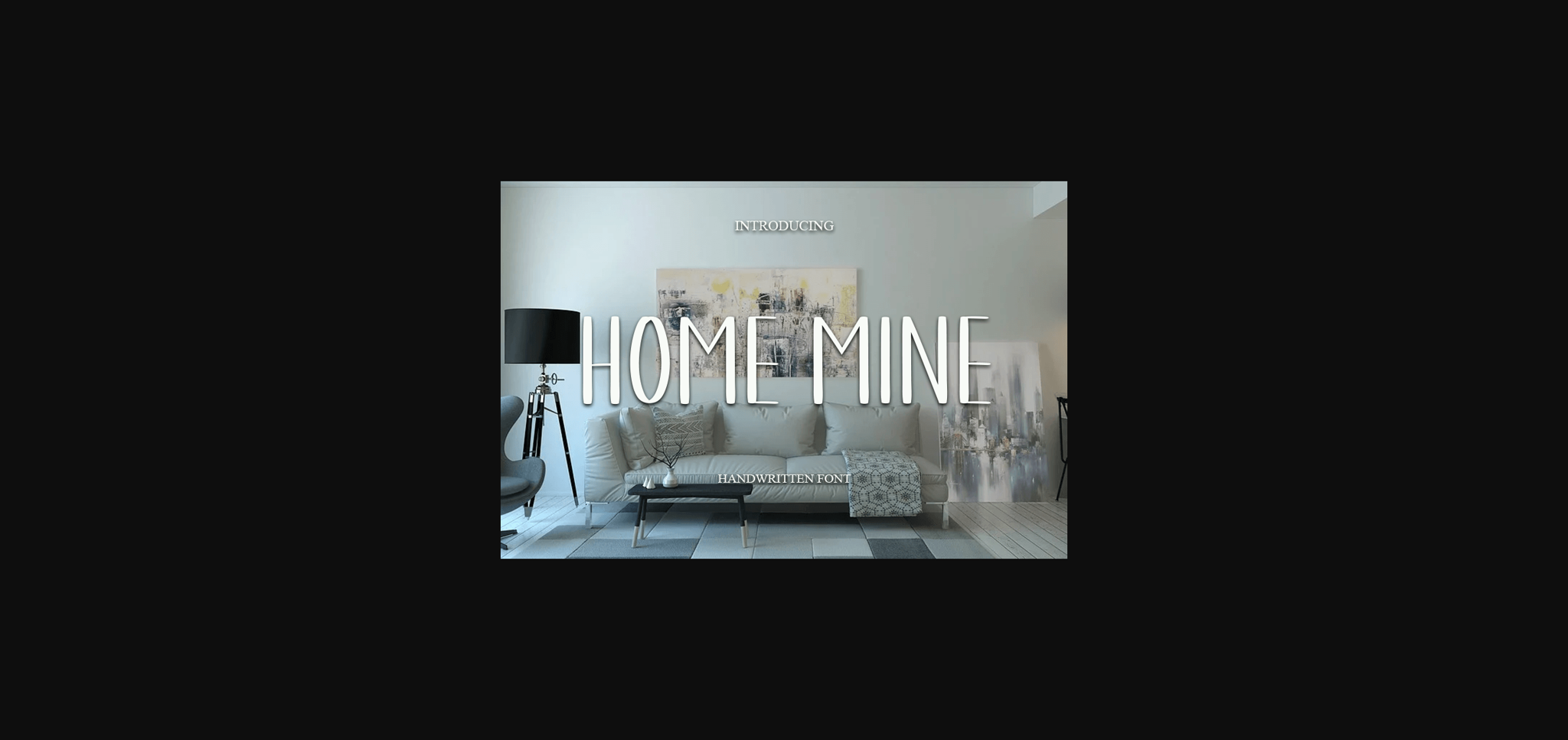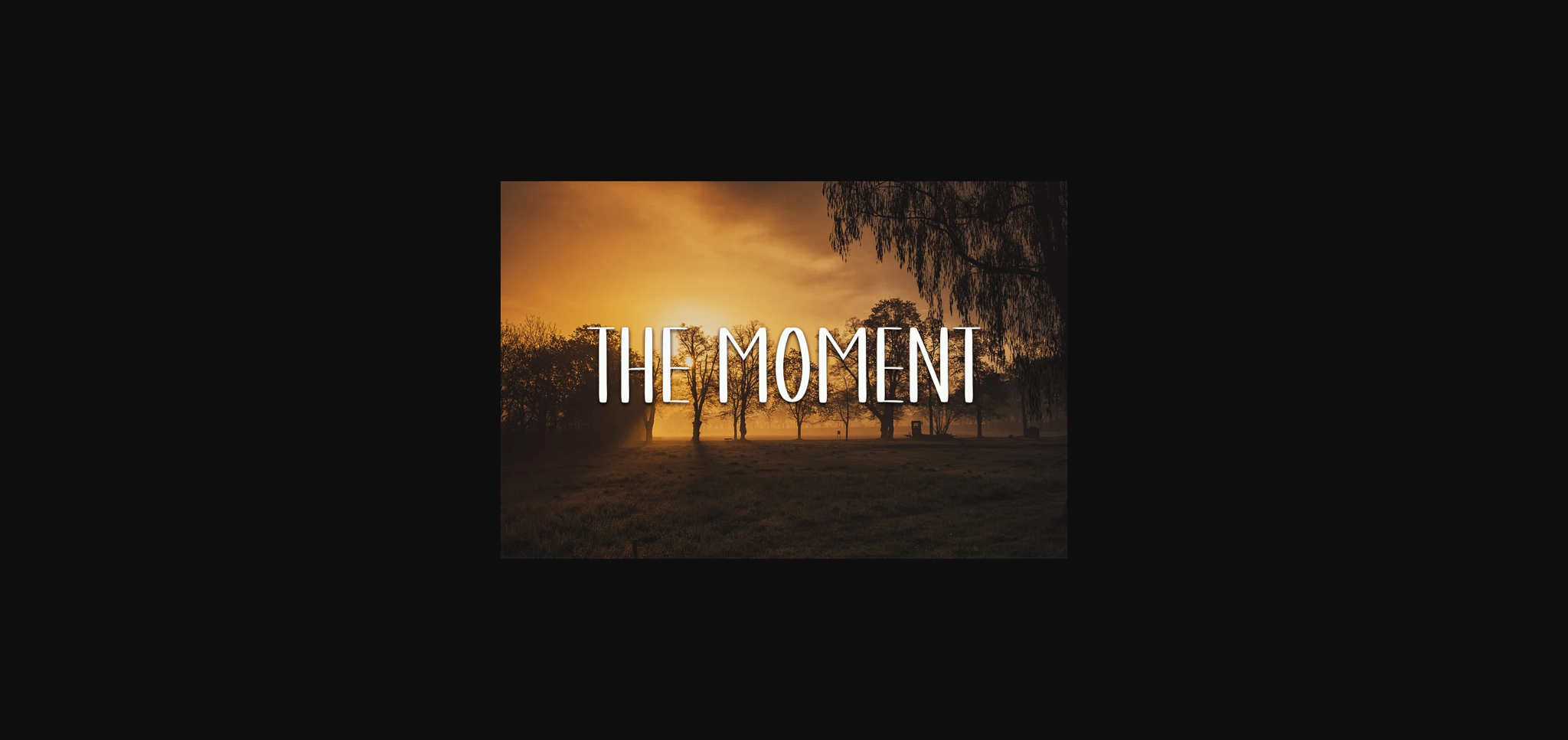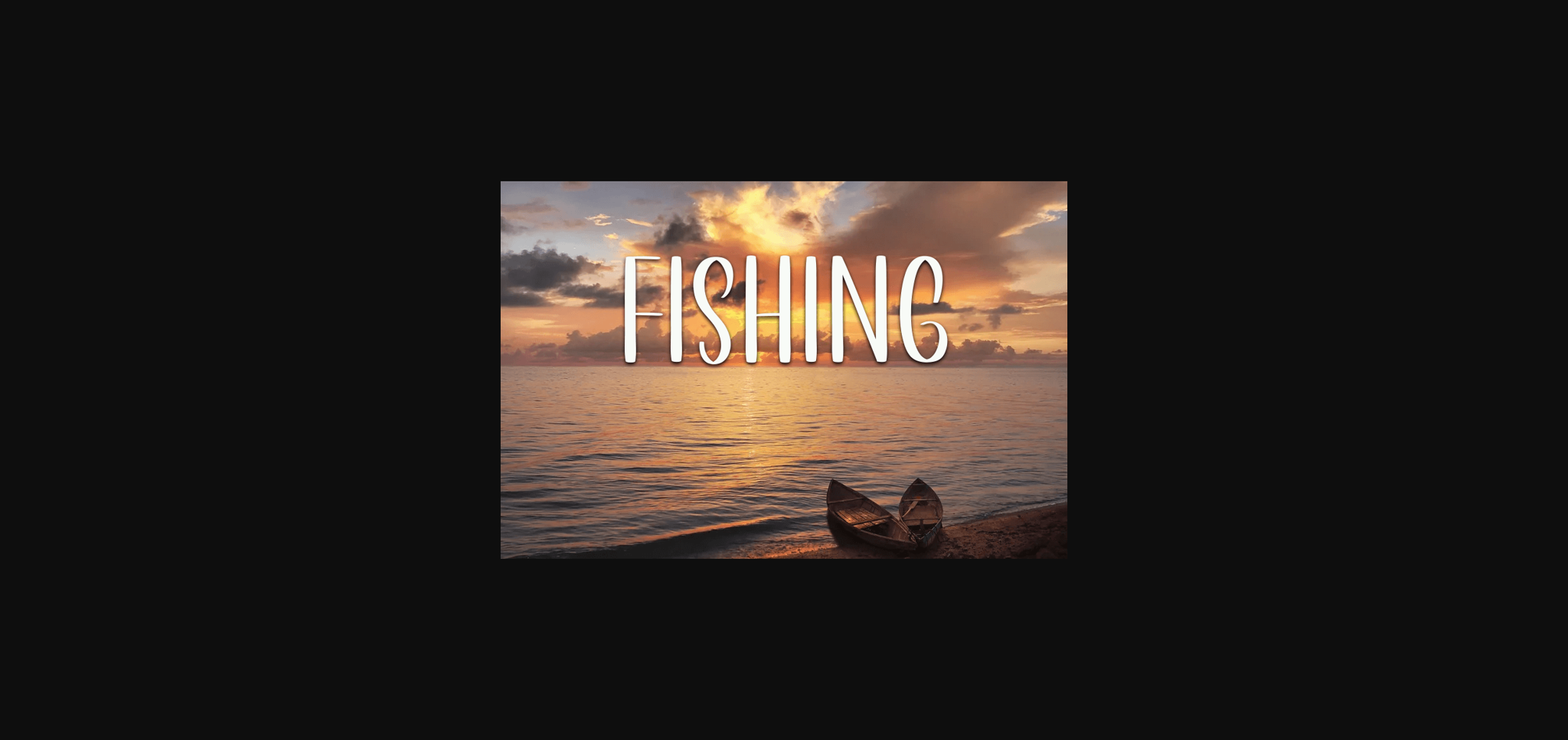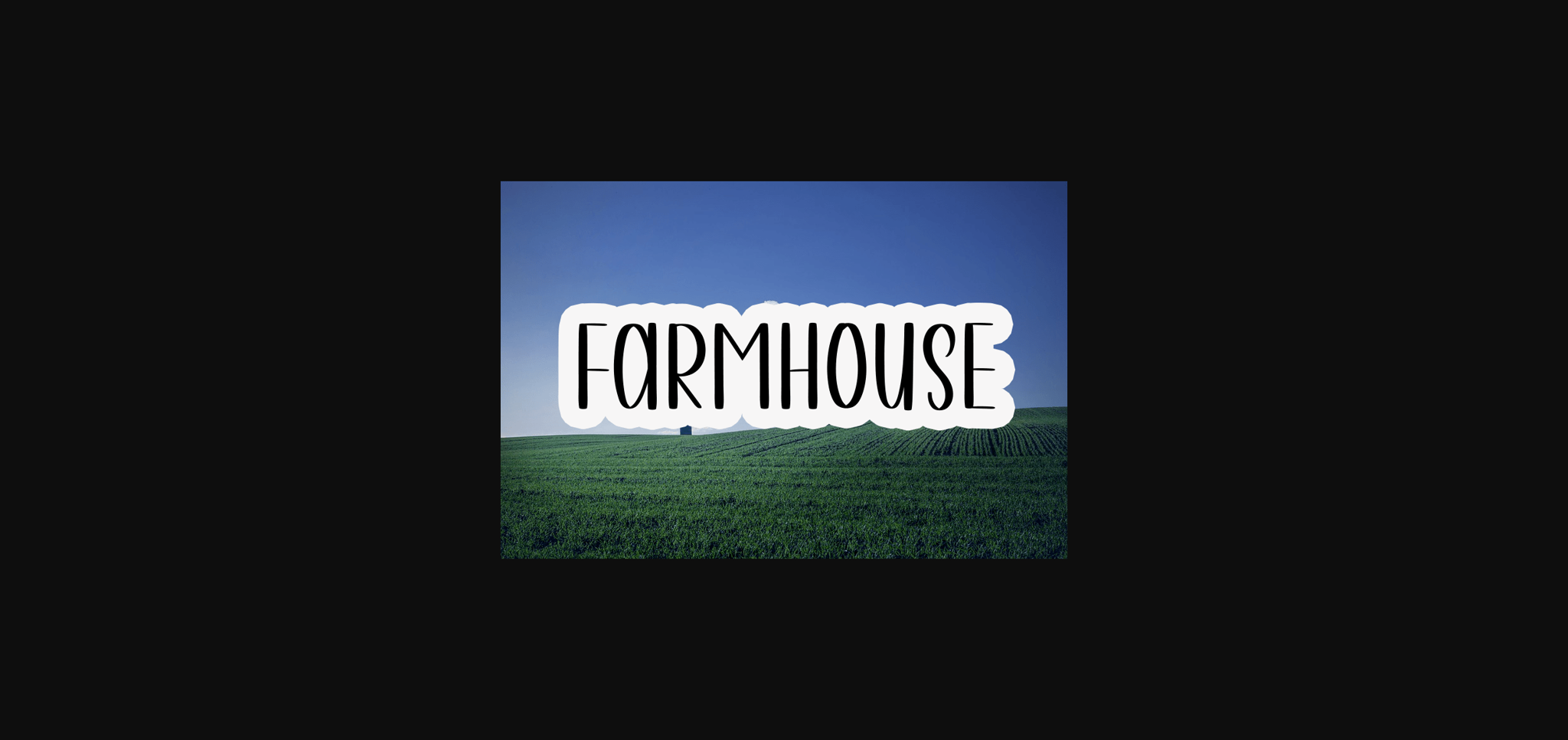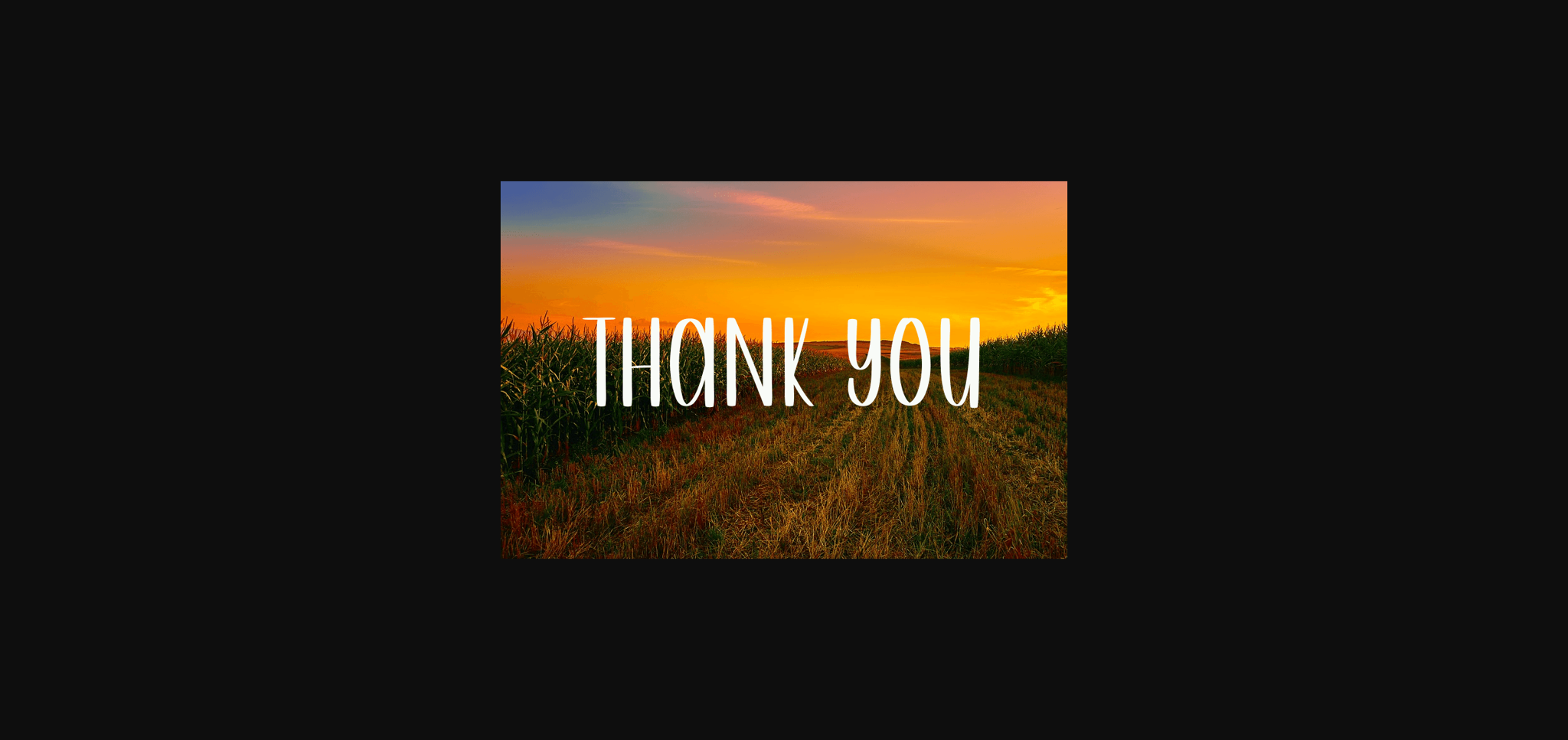
Home Mine is a sweet and beautiful sans serif font. Featuring characters that dance along the baseline, this font will add a luxury spark to any design project you wish to create!